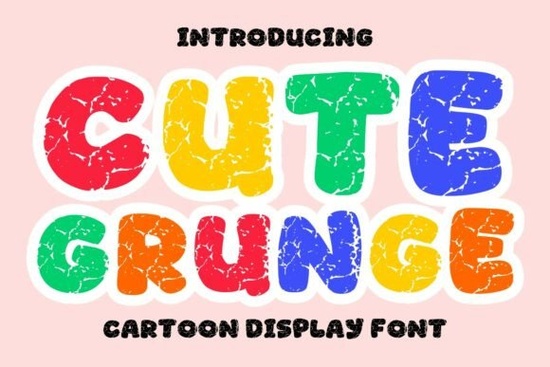
Finding the right typography for a playful project can be tricky when you want something fun but not overly childish. The Cute Grunge Font solves this by combining bold, rounded bubble lettering with unique distressed textures. This mix gives your text a cheerful energy while maintaining a slightly edgy, handmade feel. Whether you are designing stickers, crafting custom apparel, or building a vibrant brand identity, this style brings a retro-cartoon personality to the page.
What kind of projects work best with a distressed cartoon style?
The contrast between smooth curves and rough edges makes this specific typeface highly versatile for makers and small business owners. Print-on-demand sellers often use this style for kids' t-shirts because the bubbly shapes are friendly, while the worn details keep the design from looking flat or generic.
Beyond apparel, this typography is incredibly effective for digital content creators. YouTube thumbnails require text that grabs attention instantly, and the heavy weight of these letters ensures legibility even on mobile screens. When you add a vibrant color palette think mustard yellows, teal, and faded reds the retro vibe becomes even more pronounced. Crafters making vinyl decals will also appreciate the thick letterforms, which provide a solid base for weeding and application.
How do you pair playful grunge letters with other typefaces?
Mixing fonts requires a careful balance of weights and personalities. Since this cartoon style is already highly decorative and loud, it works best when paired with simpler, cleaner supporting text. If you need a striking contrast for a poster or album cover, try using structured, rigid letters like those found in military stencil designs to create an unexpected urban meets retro look.
For a more cohesive, lighthearted brand, you might combine it with other whimsical options. Browsing through a collection of cheerful gallery styles can help you find a bouncy script or secondary font that matches the vibrant energy without competing for attention. If your layout demands an elegant but strong companion, exploring bold serif choices like Rose Titan provides a sophisticated grounding element that anchors the playfulness.
When building a complete brand identity, it is also helpful to look at how other fonts with a similar distressed aesthetic handle spacing and weight. Sometimes, pairing a heavily textured headline with a clean, geometric sans-serif for the body copy ensures your marketing materials remain highly readable while still showing off a creative personality.
- Test your color contrast: Because the letters have transparent or worn spots, make sure the background color provides enough contrast so the text remains easy to read.
- Adjust the tracking: Bubble letters naturally take up more horizontal space. Tighten the letter spacing slightly for short, punchy words, but give longer phrases room to breathe.